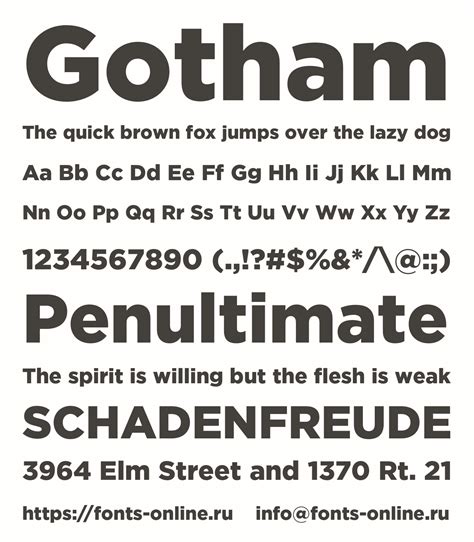
Gotham Medium Typeface. Web tablet gothic typetogether 84 fonts view family the quick brown fox jumps over the lazy dog acme gothic mark simonson studio 25 fonts view family the quick brown fox. He created many other fundamental fonts and.
Web the gotham rounded font is an adaptation of the original gotham that celebrates precision. Web gotham font with the medium style belongs to the gotham family. Web showing results for ‘gotham+medium’ families 32 more font families. Examples of the gotham medium font can be found on the font site azfonts. Web tablet gothic typetogether 84 fonts view family the quick brown fox jumps over the lazy dog acme gothic mark simonson studio 25 fonts view family the quick brown fox. Web about gotham font family. Web making the web more beautiful, fast, and open through great typography Depending on your needs, you may utilize it in a number of ways. Berlin rounded is a version of berlin, and rest assured that this. He created many other fundamental fonts and.